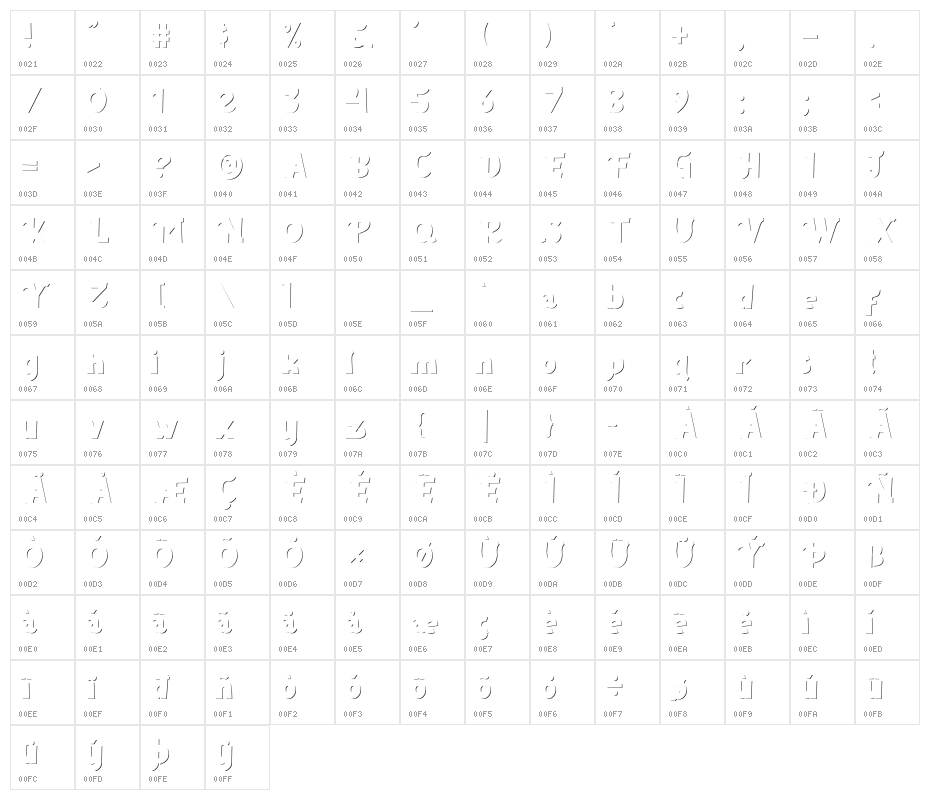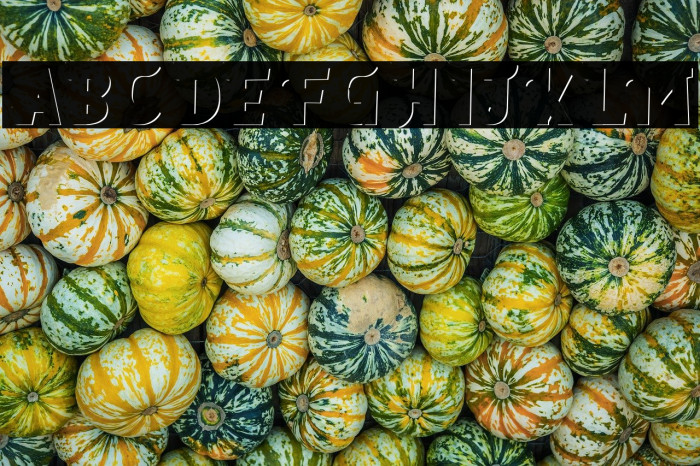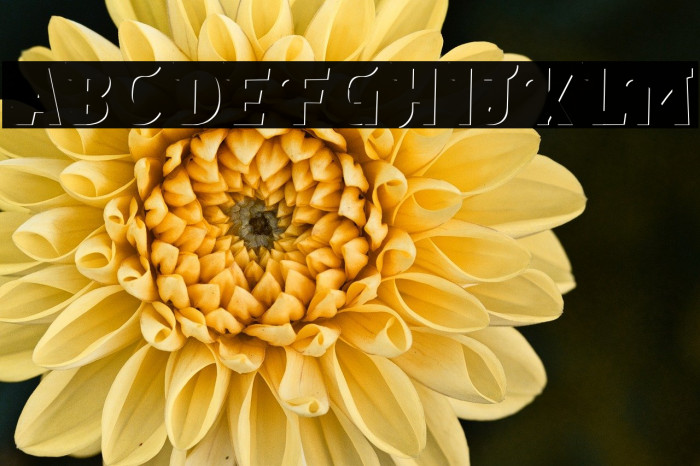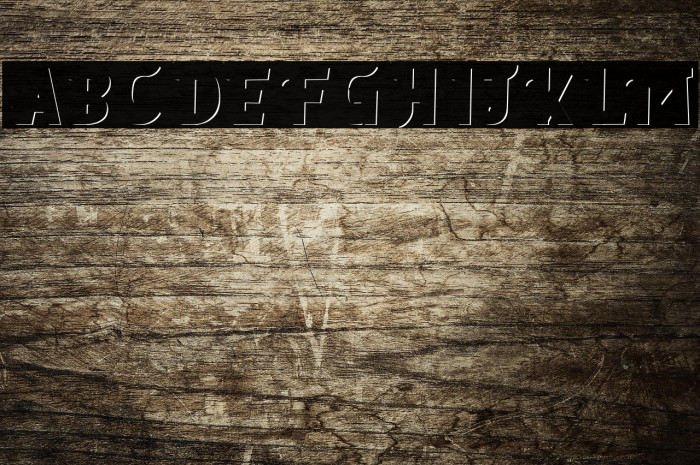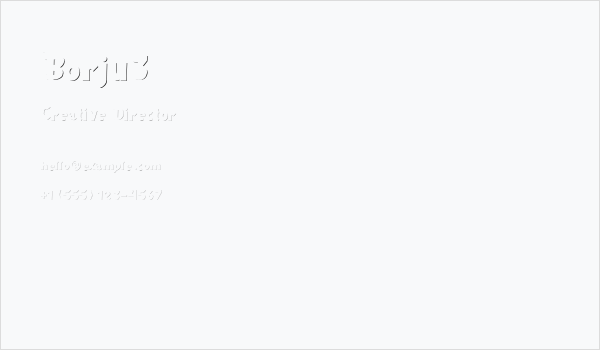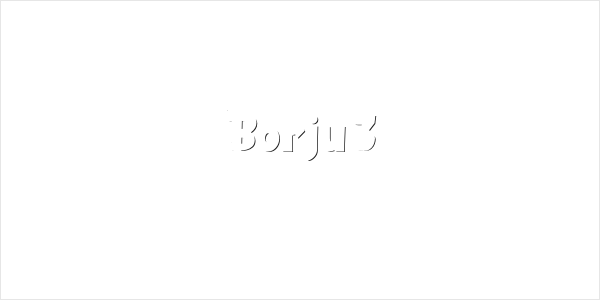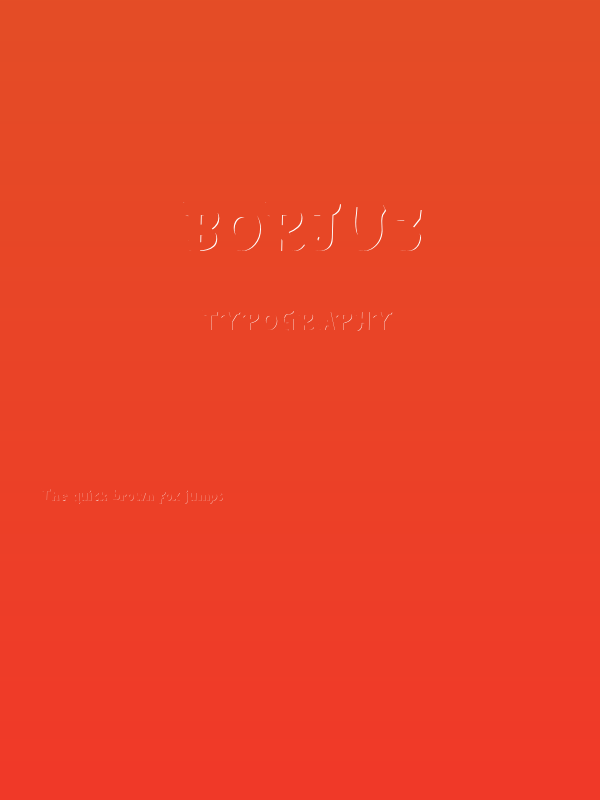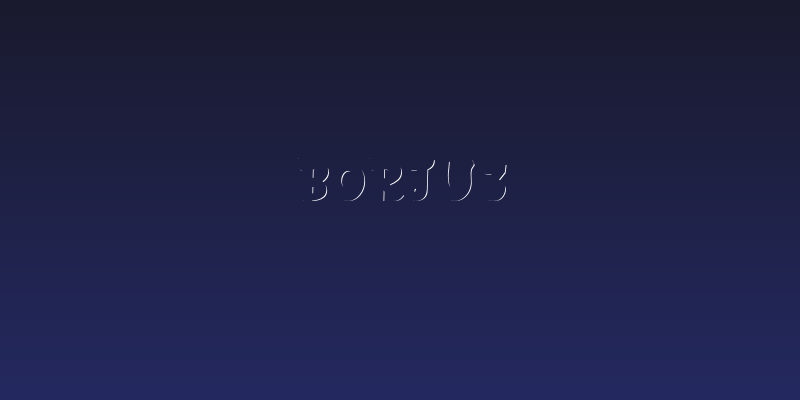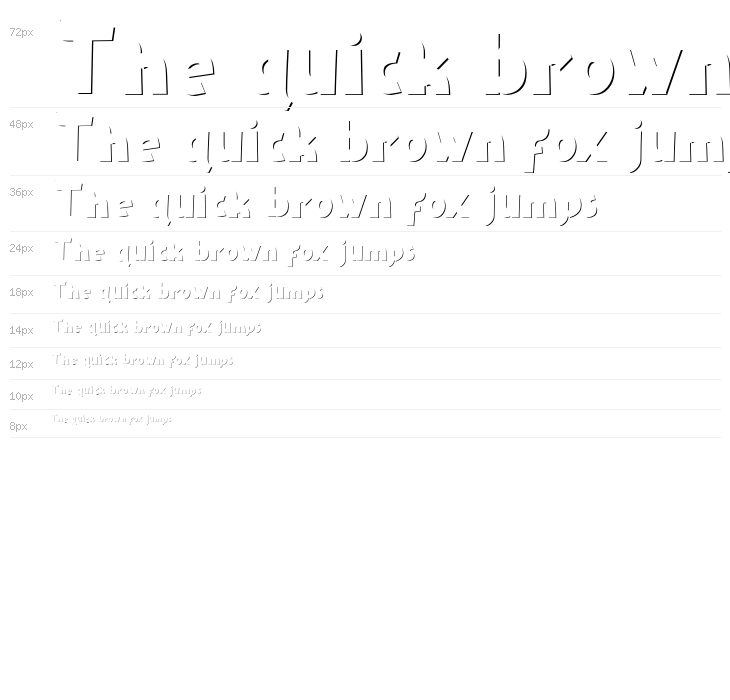
Borju3 Font
Borju3 Description
This font features a unique and modern design with a geometric and angular style. The characters are composed of sharp edges and clean lines, giving it a futuristic and dynamic appearance. The uppercase and lowercase letters maintain a consistent style, with slight variations in stroke thickness that add visual interest. The numerals and special characters are designed to match the overall aesthetic, ensuring a cohesive look across all text elements. This font's distinctive style makes it stand out, making it ideal for projects that require a bold and contemporary touch.